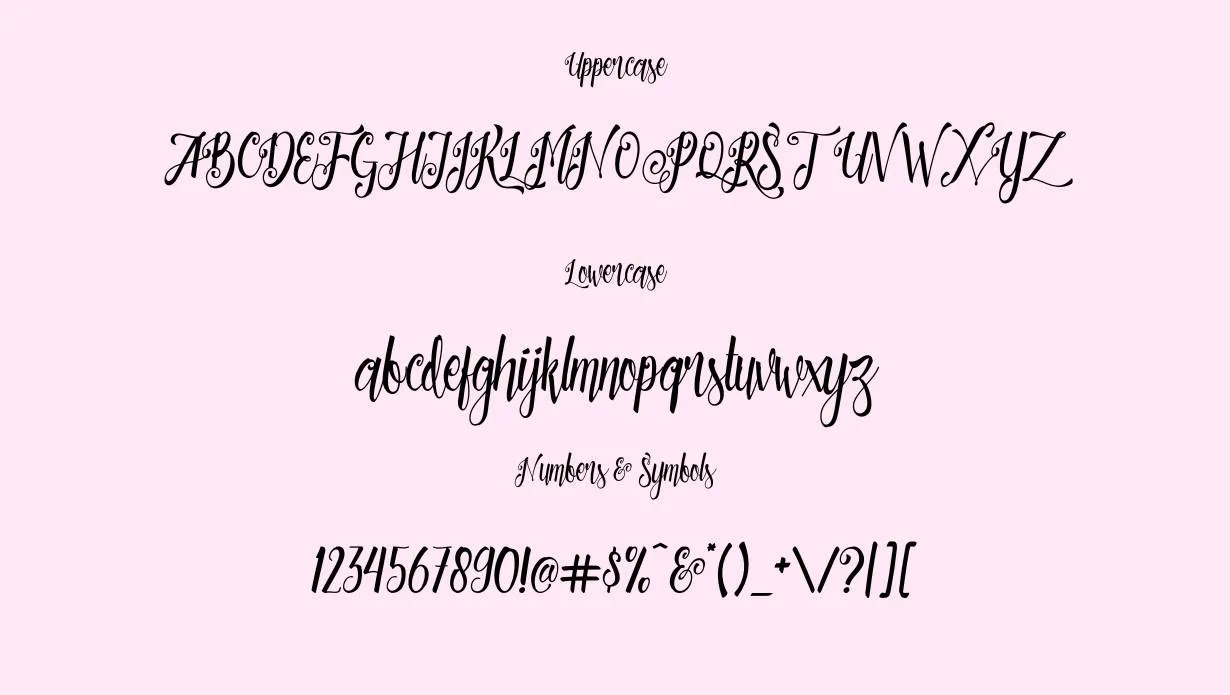
The Giraffey Condensed font is a playful and eye-catching typeface commonly used in designs that require a fun and unique touch. Its tall and condensed letters make it perfect for conveying a whimsical and energetic message. This font is often used in children’s books, posters, or designs that target a younger audience.
The weight of Giraffey Condensed font is usually medium, offering a balance between presence and readability. Its width is generally narrow, adding to its playful and distinctive nature, making it ideal for titles or headlines.
| Name | Giraffey Condensed Font |
| Designer | GraphicPear |